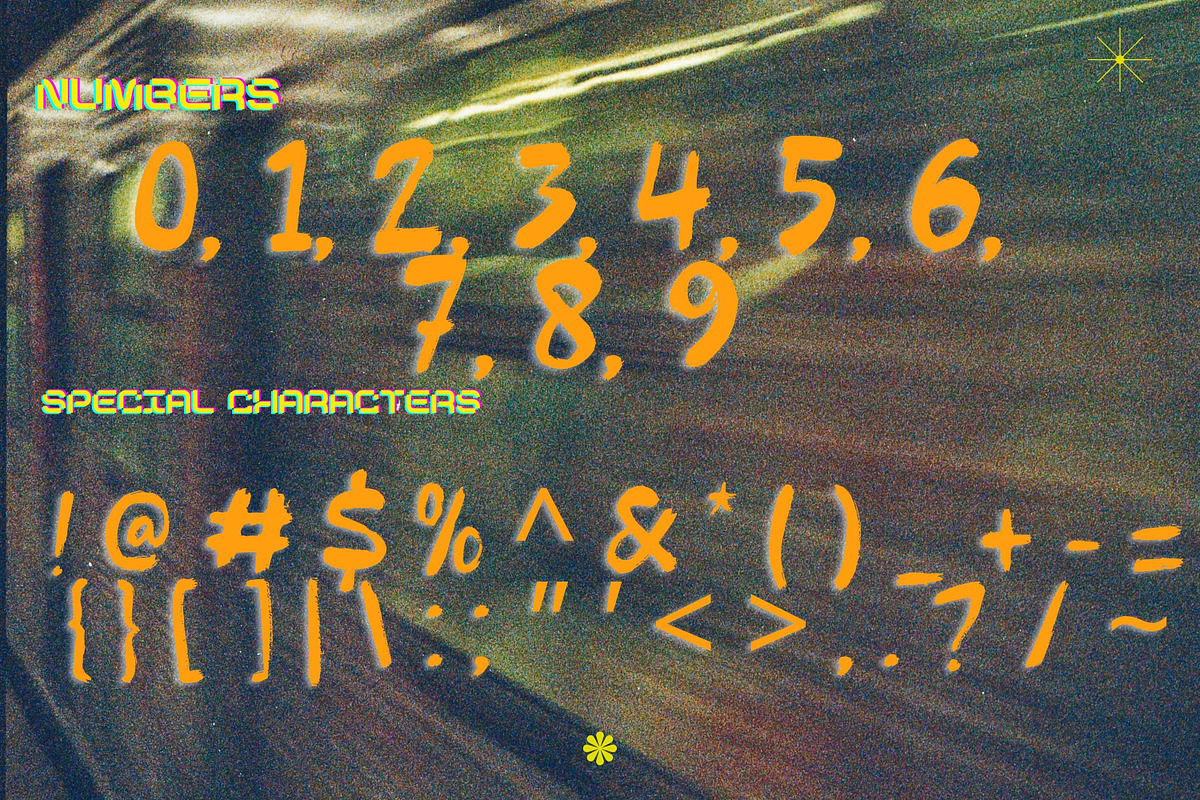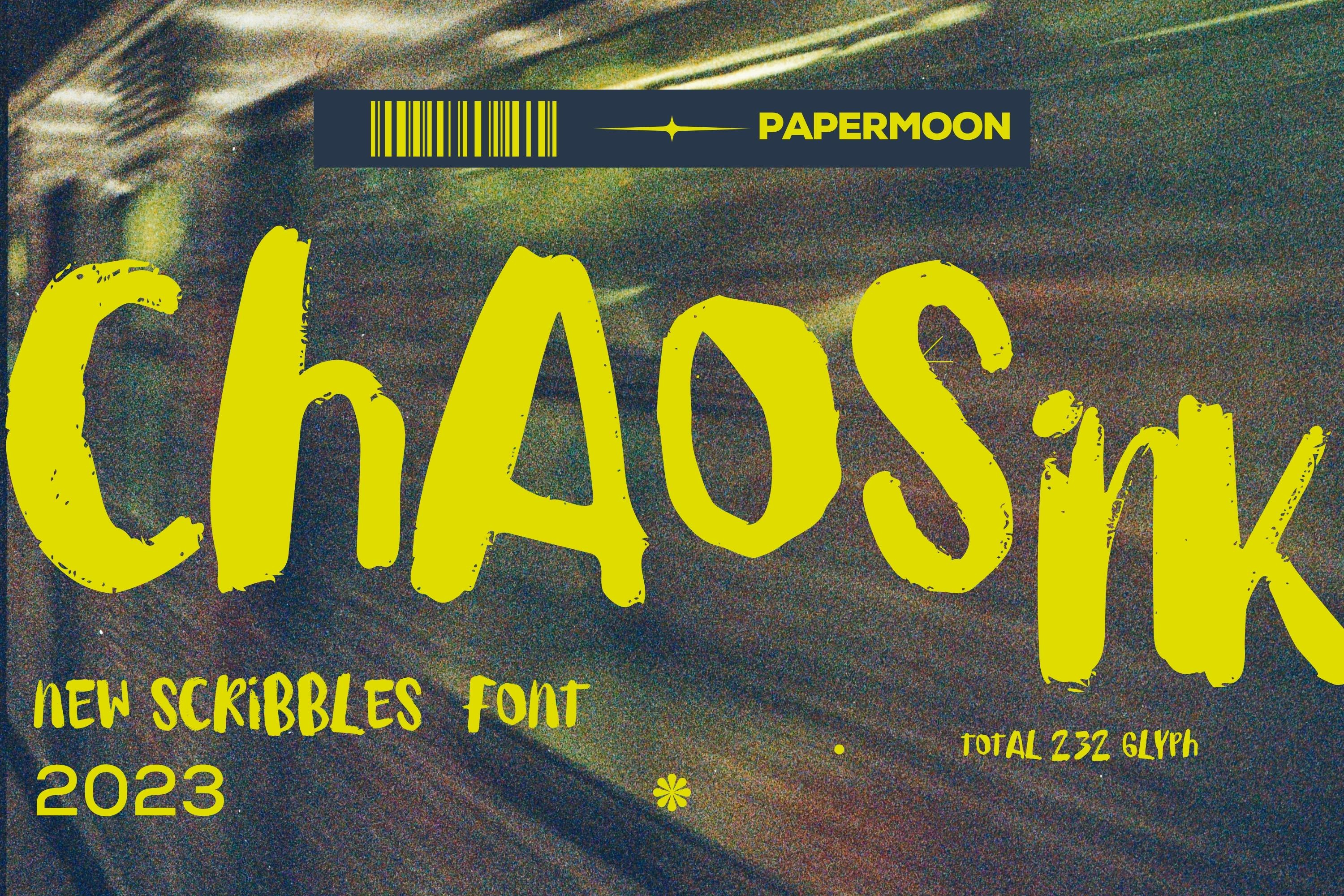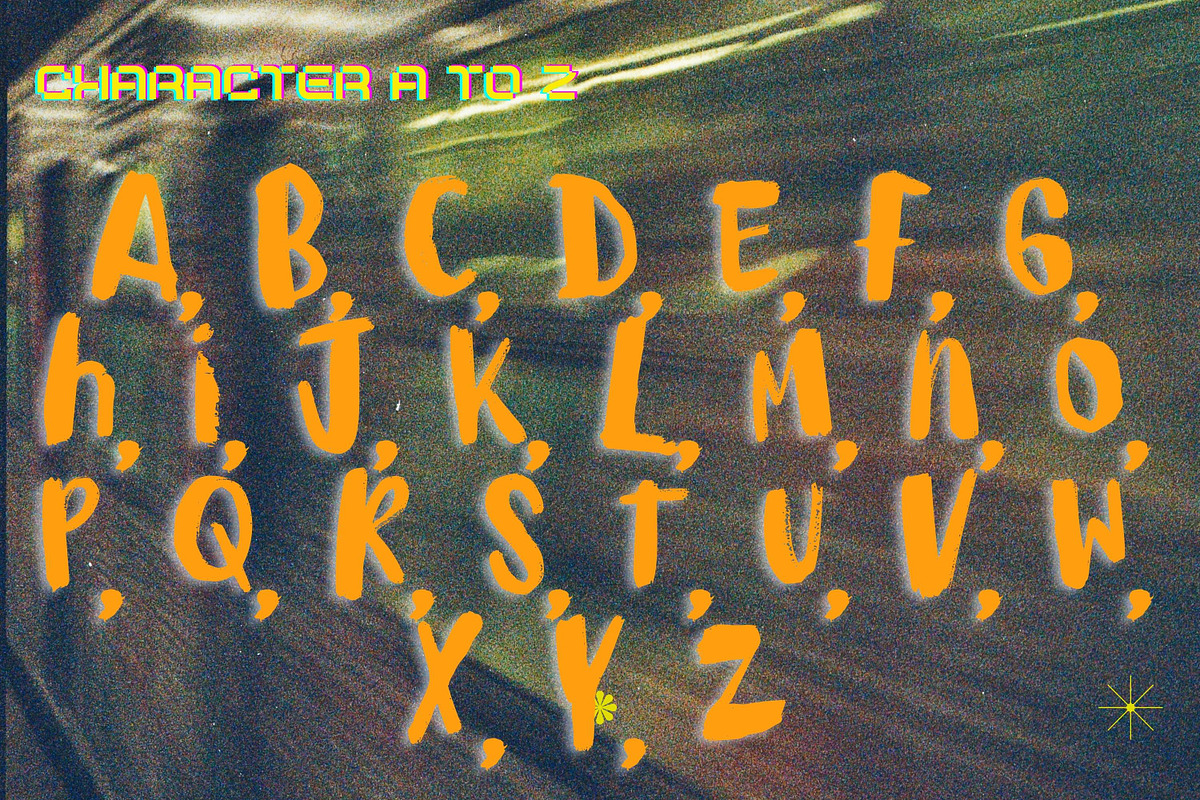
ChaosInk - Scribbles Font
Introducing ChaosInk: Amplify Your Visual Impact!
Are you craving more intensity in your visuals? ChaosInk's handwritten typeface can deliver that extra punch. Its playful, realistic scribble style adds a dose of boldness and volume to your designs. With unique alternates and ligatures, you have the creative freedom to mix and match characters to suit your style.
This versatile typeface is perfect for packaging, posters, quotes, editorial work, and branding projects that demand a striking presence.
Elevate your visuals with ChaosInk's distinctive handwritten typeface!